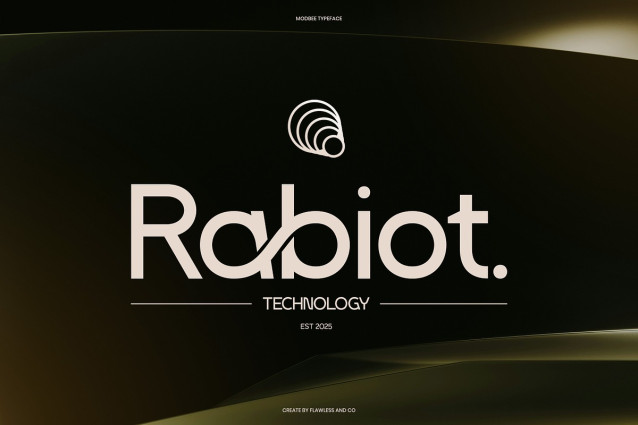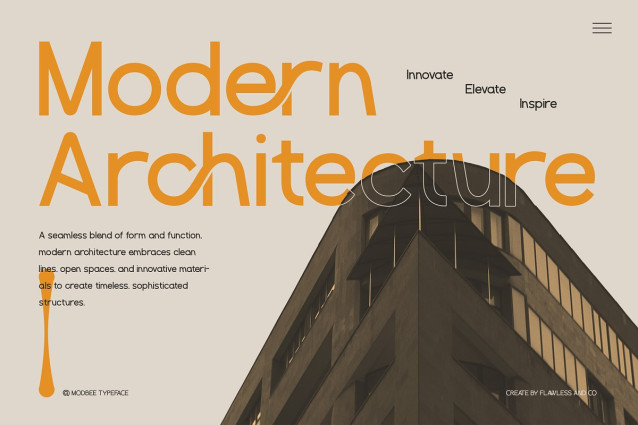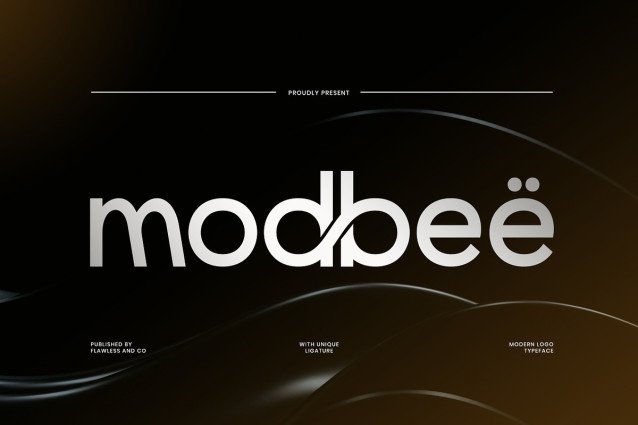
Modbee Font
Modbee Font is a sleek and modern sans serif typeface, designed with clean lines and a unique ligature style that makes it perfect for contemporary branding. Its balanced letterforms bring a sense of professionalism while keeping a creative touch, making it highly versatile for different design needs. Whether you’re working on logos, product packaging, website headers, posters, or corporate identities, Modbee delivers a modern and stylish look that elevates your design. Its minimal yet impactful design ensures that every project stands out with clarity and sophistication. If you’re looking for a modern sans serif font that combines functionality with style, Modbee is the perfect choice to strengthen your brand identity.